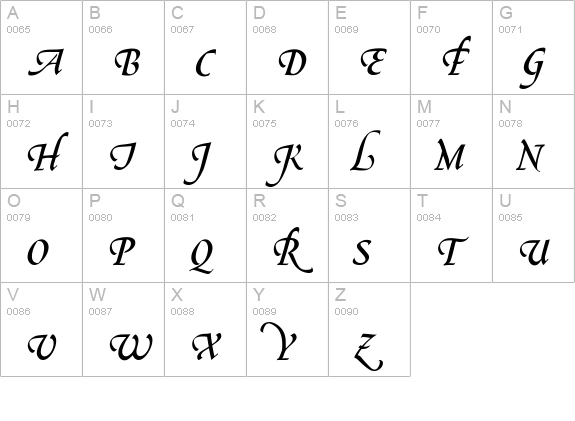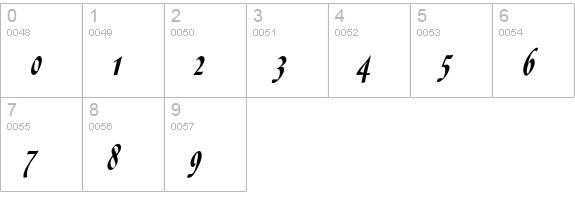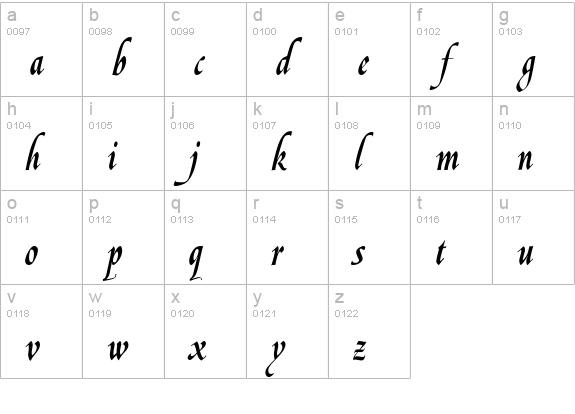
LeGriffe Font Details
Introducing LeGriffe, a stunningly elegant font that effortlessly combines classic sophistication with a touch of contemporary flair. Designed with meticulous attention to detail, this typeface exudes a timeless beauty that will captivate and inspire. LeGriffe features sleek and flowing letterforms, delicately crafted to create a harmonious balance between grace and strength. Each character is carefully drawn to showcase the perfect blend of sharp angles and gentle curves, resulting in a truly exquisite typeface that commands attention. With its versatile nature, LeGriffe can effortlessly adapt to a wide range of design projects. Whether you're creating elegant wedding invitations, luxurious branding, or refined editorial layouts, this font will elevate your work to new heights of elegance and professionalism. What sets LeGriffe apart is not only its remarkable aesthetics but also its accessibility. This font is available for free download at FontsMarket.com, making it easily accessible to designers, enthusiasts, and typographers alike. Embrace the opportunity to enhance your creative projects with this exceptional font, without any financial burden. LeGriffe's versatility extends to its extensive character set, which includes uppercase and lowercase letters, numerals, punctuation marks, and a selection of multilingual support. These features ensure that your message can be conveyed flawlessly, no matter the language or context. Unleash your creativity and let LeGriffe be your ultimate tool for design expression. Its timeless elegance and effortless charm will undoubtedly make a lasting impression on any project, leaving a mark of sophistication and refinement. Download LeGriffe for free today at FontsMarket.com, and experience the beauty and versatility of this exceptional font firsthand. Elevate your designs to new heights and embrace the power of LeGriffe's timeless allure.